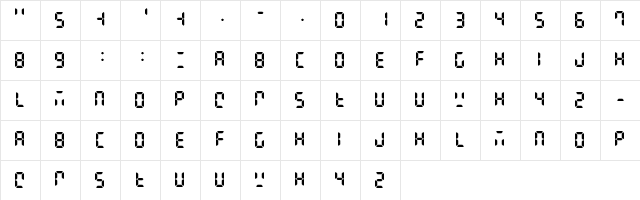
Digital Display Regular
| Designer | Andrew McCluskey |
Design Context for Digital Display Typeface
Digital Display channels digital-age aesthetics through its sharp, structured letterforms — ideal for brands that want to signal innovation.
Pro Tip: Try Digital Display with generous letter-spacing in UI labels and navigation — the geometric forms benefit from room to breathe.